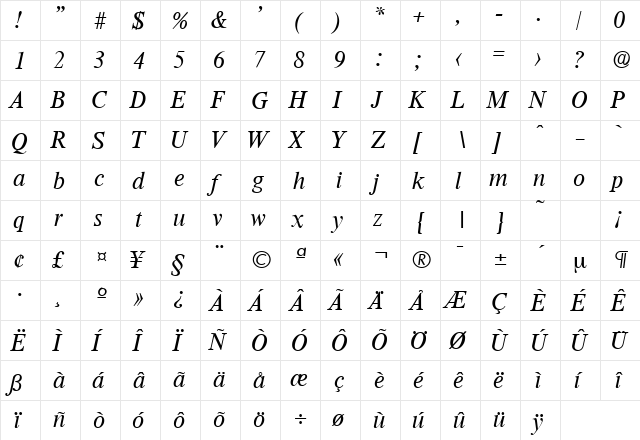
Thames-Serial DB RegularItalic Font Preview
Thames-Serial DB RegularItalic
Thames-Serial DB RegularItalic Font Details
Design Context for Thames-Serial DB Typeface
Thames-Serial DB takes a measured approach to typography — its balanced proportions and neutral character make it a reliable workhorse for both digital and print work. Its italic angle brings a sense of urgency and motion to the letterforms.